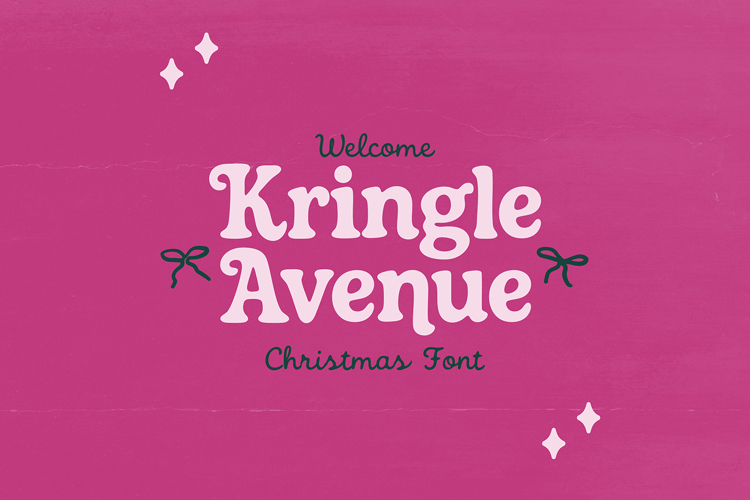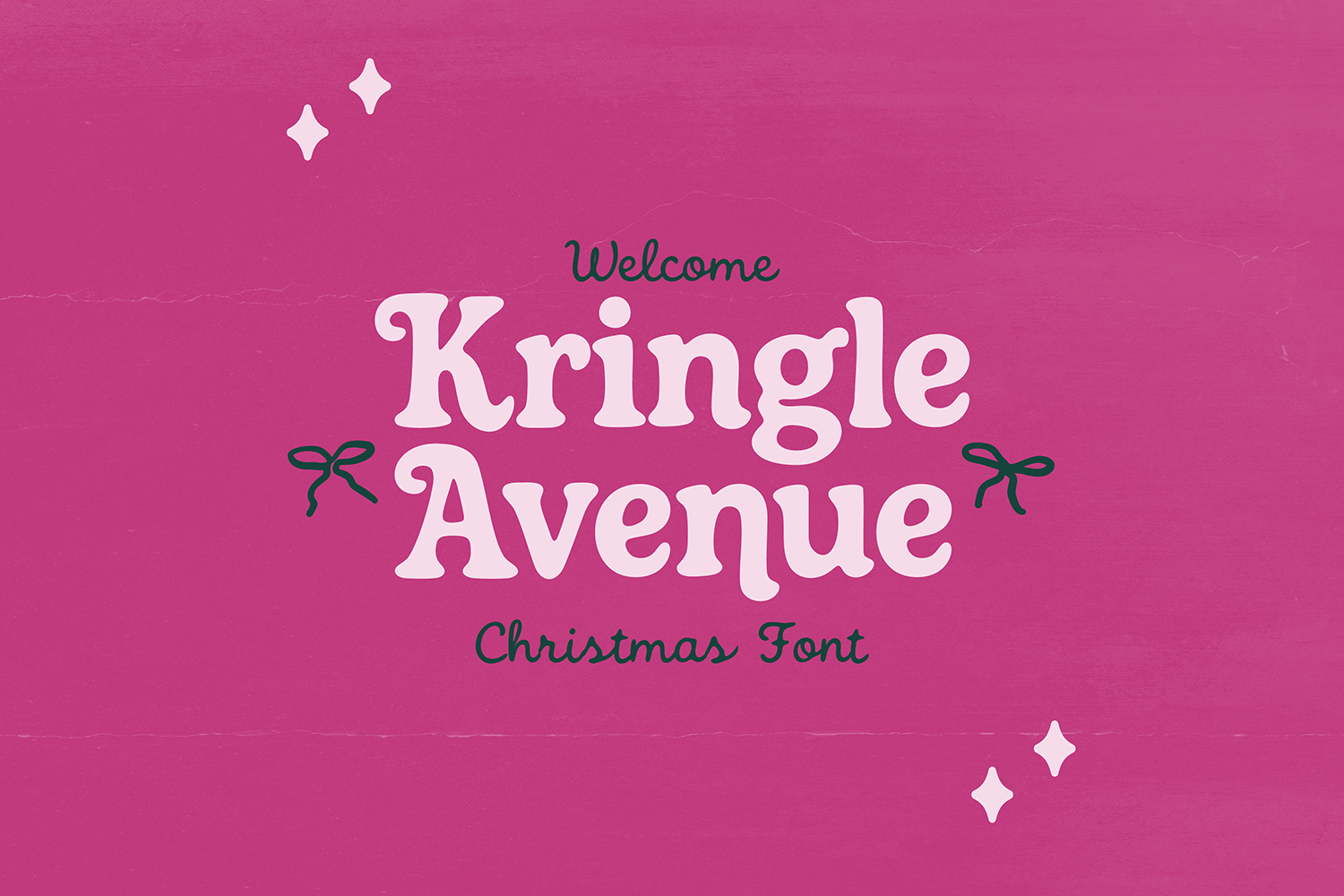
"Kringle Avenue" a Whimsical Bold Elf Christmas font
Kringle Avenue is perfect for your holiday projects. Use it for Christmas cards, winter crafts for decor and more! This font includes upper and lowercase characters, numbers, and basic punctuation. Find the stars by using the < > keys.